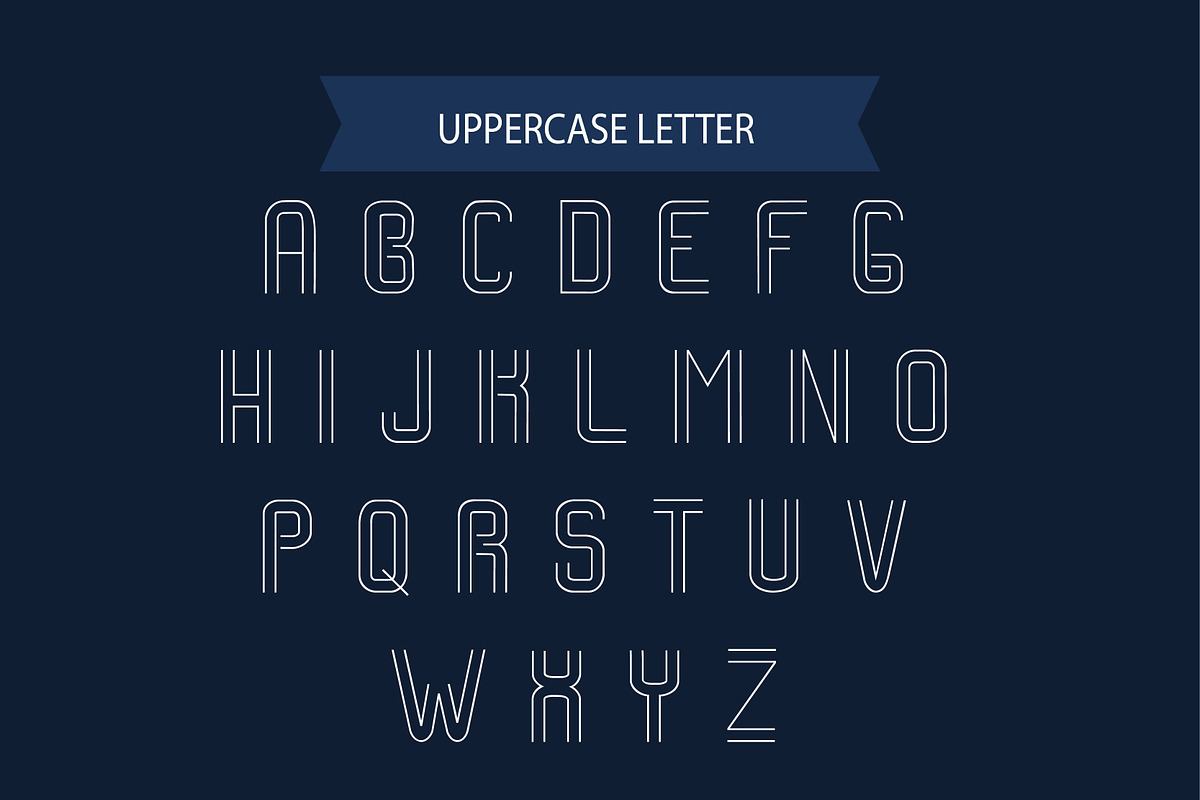
Please note, to use this font for commercial purposes, you must purchase the full version. Line Blank is a modern and minimalist font that combines clean lines with an elegant, contemporary style. Perfect for logos, branding, websites, and creative projects, this font offers a sophisticated yet simple look that adds a unique touch to your designs. Whether you're working on a sleek brand identity, a website, or a professional portfolio, Line Blank provides clarity and elegance. Test it out and enjoy free download access for personal use. Experience the modern simplicity of Line Blank Font Free Download before purchasing the commercial license. Enhance your designs with the stylish and clean appeal of Line Blank.